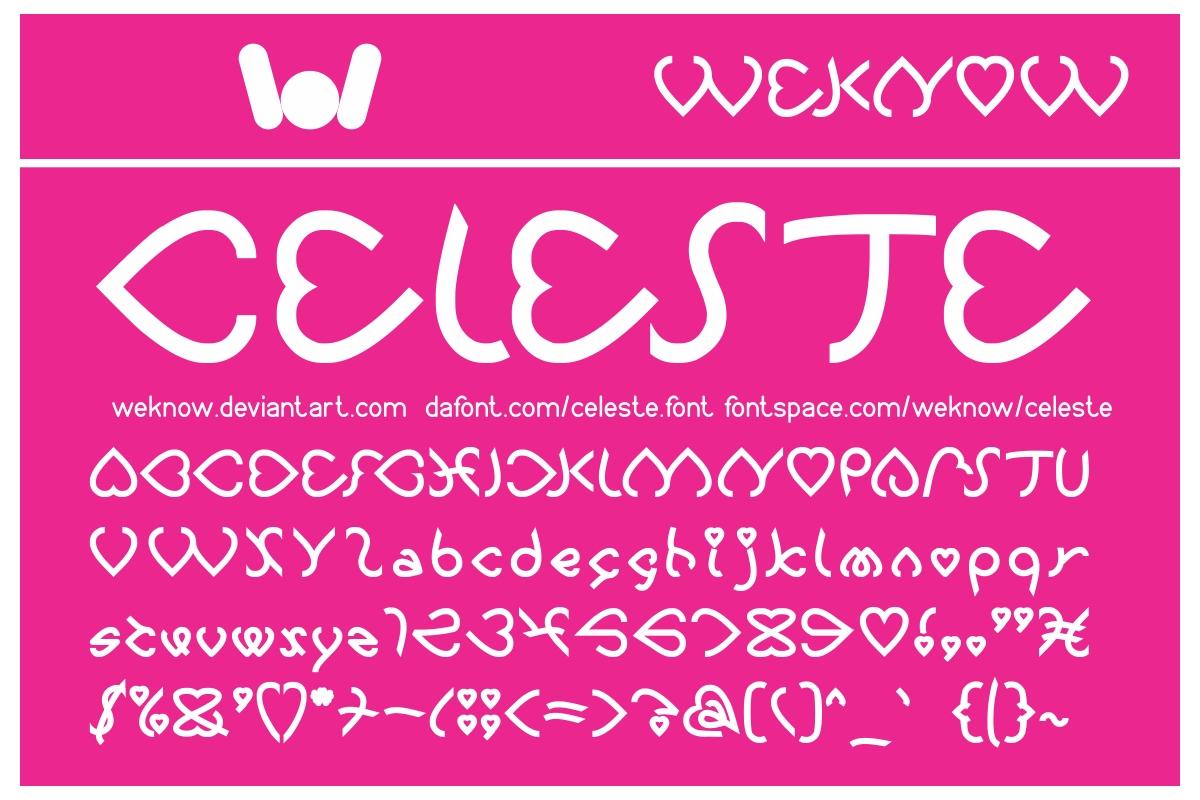
Celeste celebrates abstract shapes in all their eclectic beauty. This playfully conceptual display typeface font will look truly outstanding in a wide range of contexts.